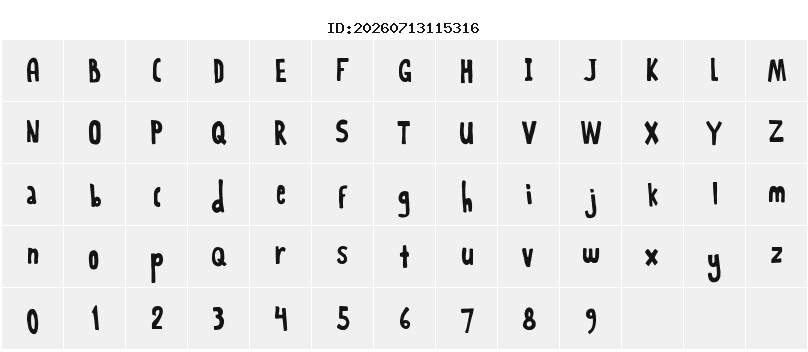
Rabbit On The Moon Preview
• Font Name: Rabbit On The Moon
• Designer: David Kerkhoff
About Rabbit On The Moon.ttf
Rabbit On The Moon.ttf is a modern, elegant sans-serif font designed for ultimate readability and visual harmony. Perfect for branding, headlines, web design, and print materials.